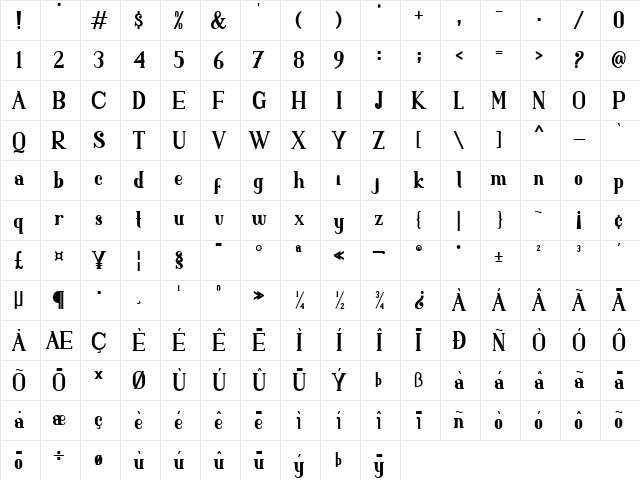
SINGGEL PARENT BOLD Regular
| Foundry | AFREDO.FK |
| Designer | ZULFIKAR ALI |
Design Context for SINGGEL PARENT BOLD Typeface
SINGGEL PARENT BOLD is a composed and adaptable typeface that performs quietly and consistently across a wide range of design contexts. The heavy weight commands attention and anchors typographic hierarchies.
Pro Tip: Pair SINGGEL PARENT BOLD with a font of contrasting weight or personality to build a more expressive typographic hierarchy.